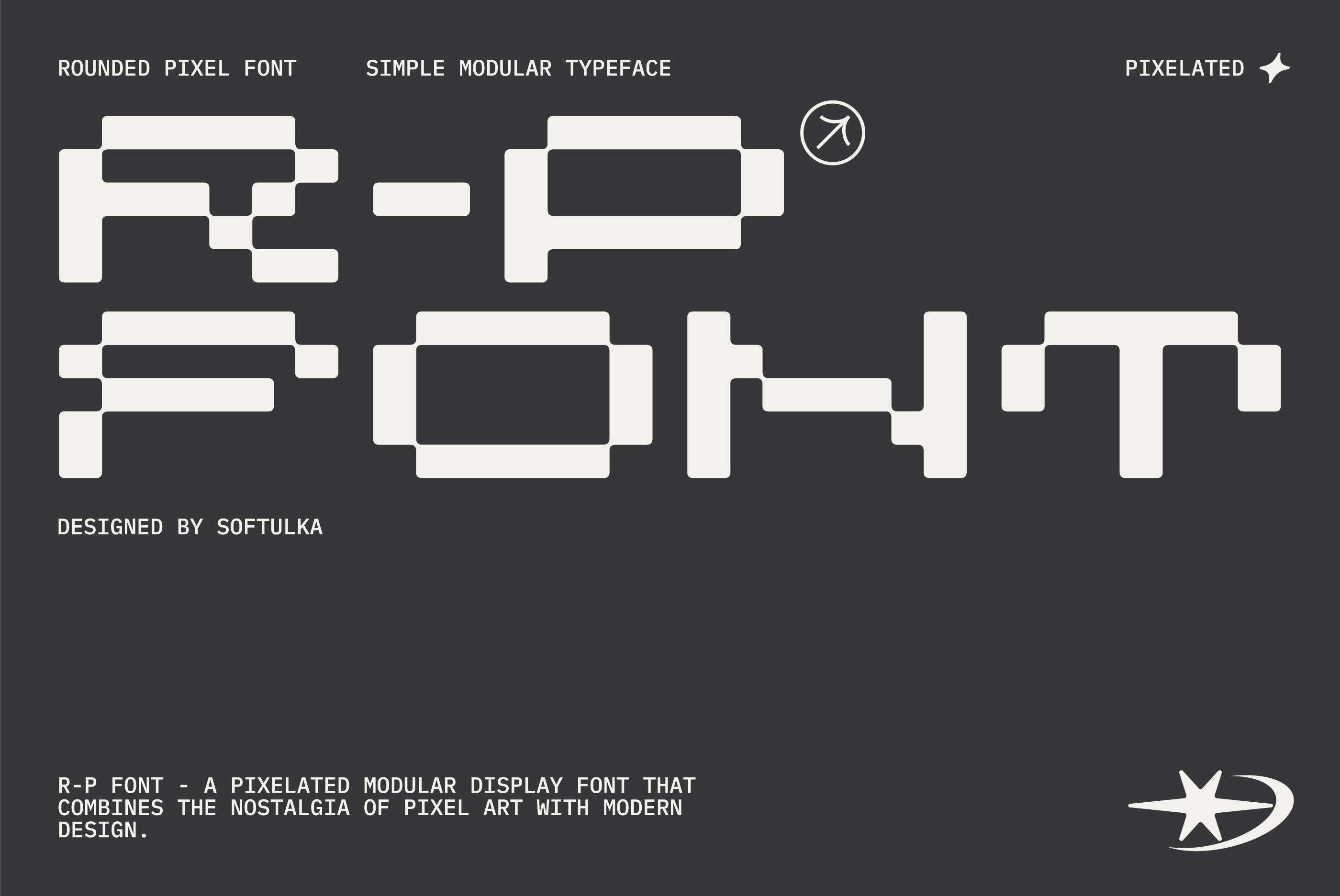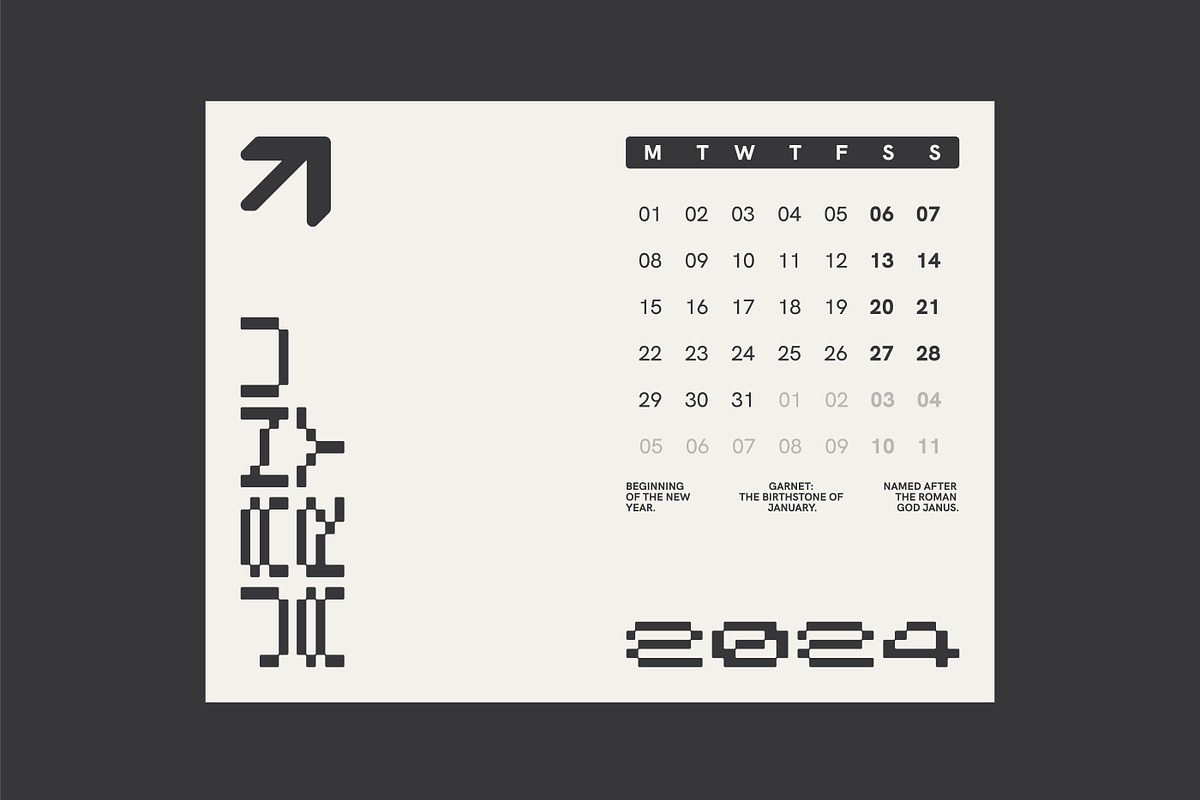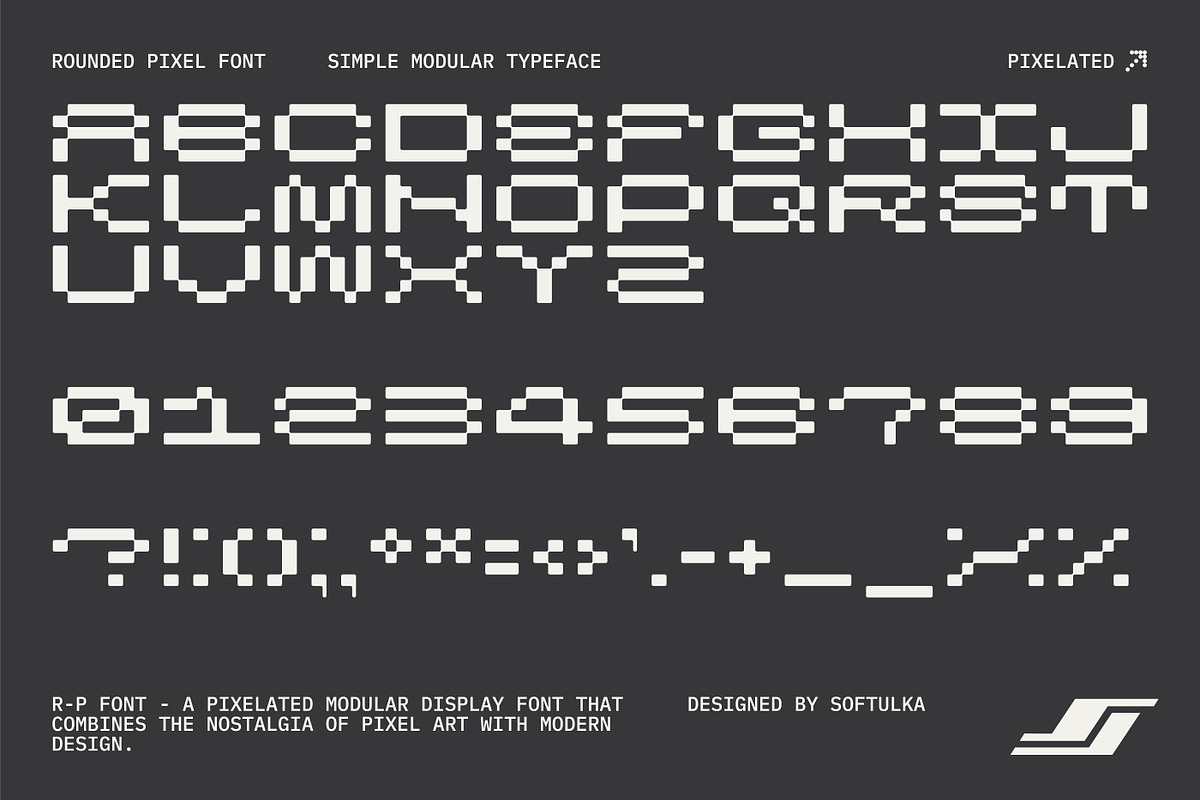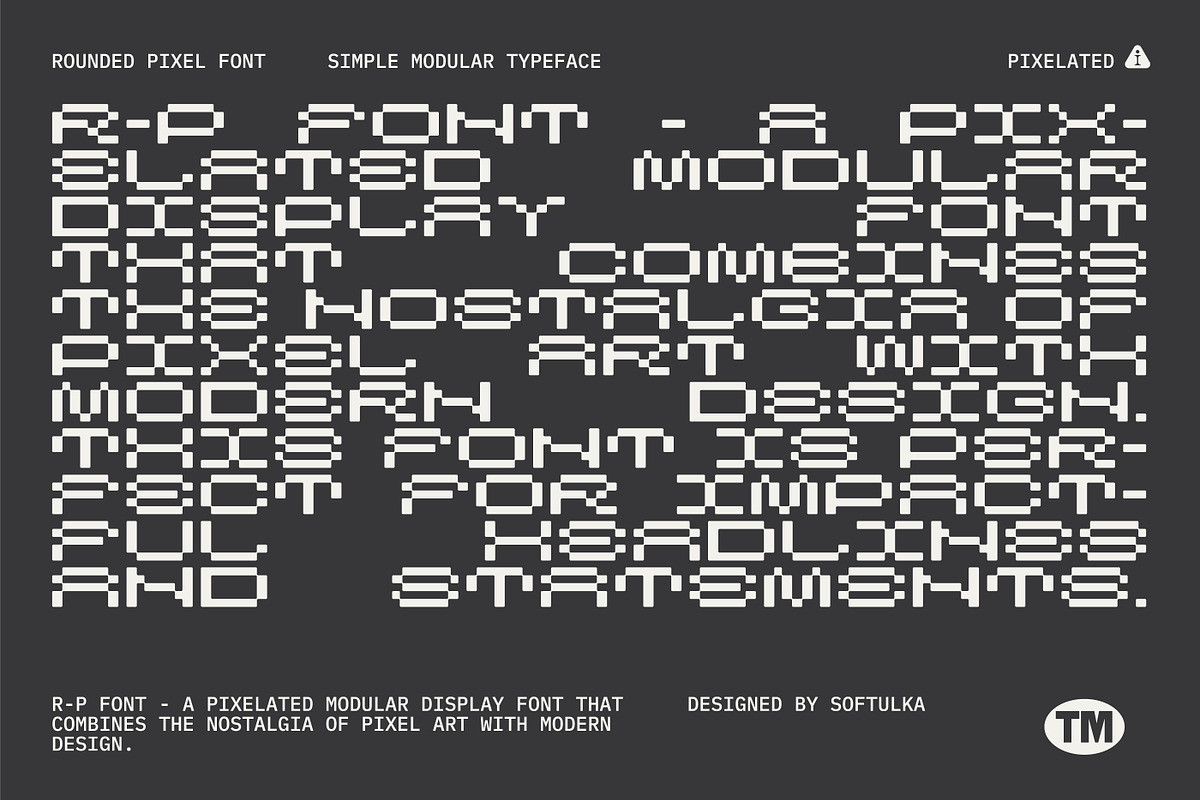
R-P Font - a Pixelated Modular Font
R-P Font - a pixelated modular display font that combines the nostalgia of pixel art with modern design. This font is perfect for impactful headlines and statements. Its distinct style is characterized by rounded corners, giving it a friendly yet professional appearance. Ideal for digital media, gaming, and tech-related branding, "R-P Font" provides a versatile and memorable typographic experience. Works perfectly for bold Titles, Festival posters, as a graphic element for bright T-shirts, and hoodies, for the design of musical products, especially for alternative, heavy music, or even Backgrounds!